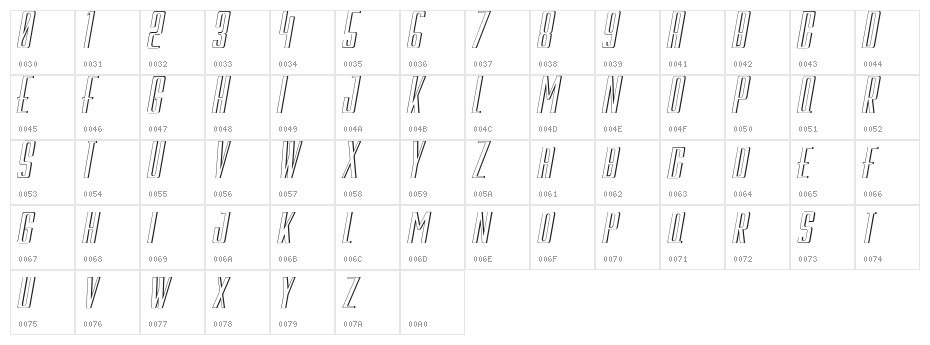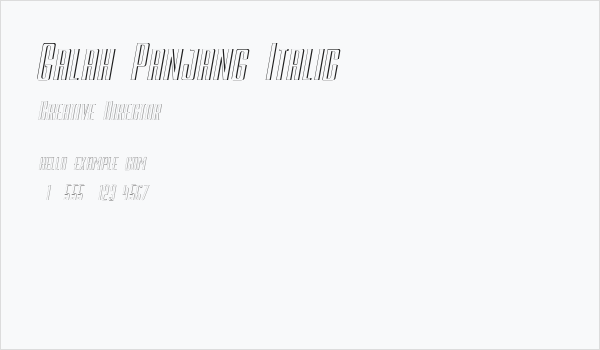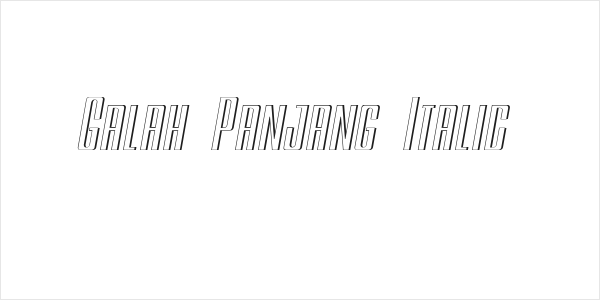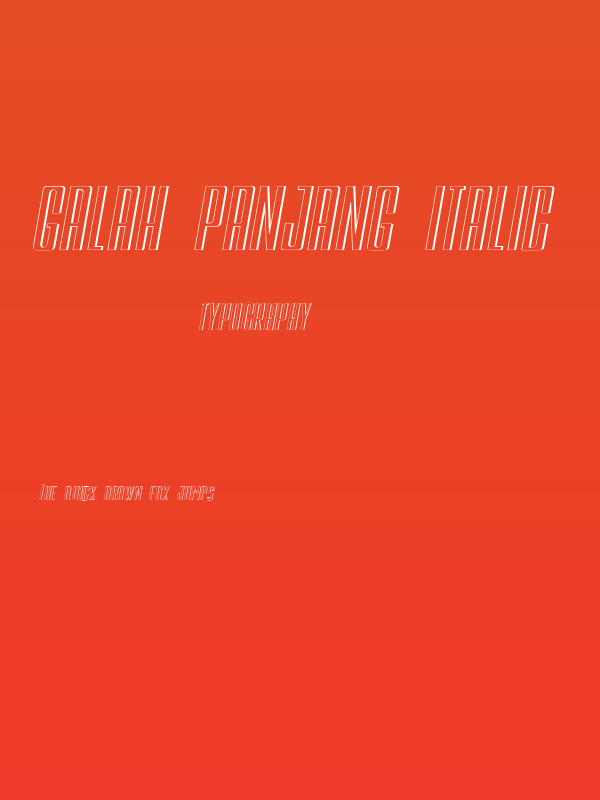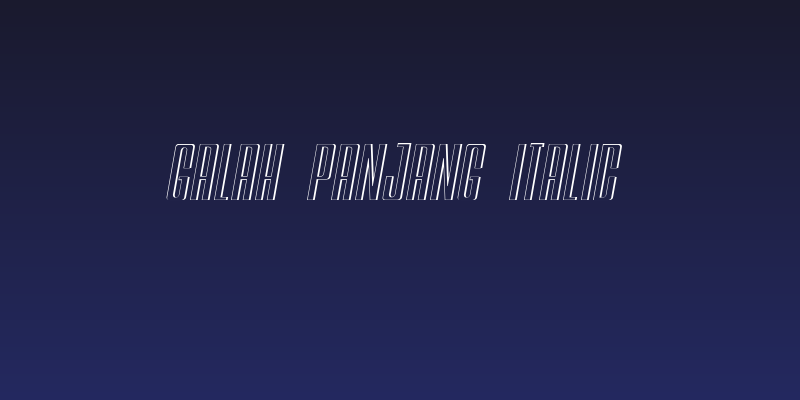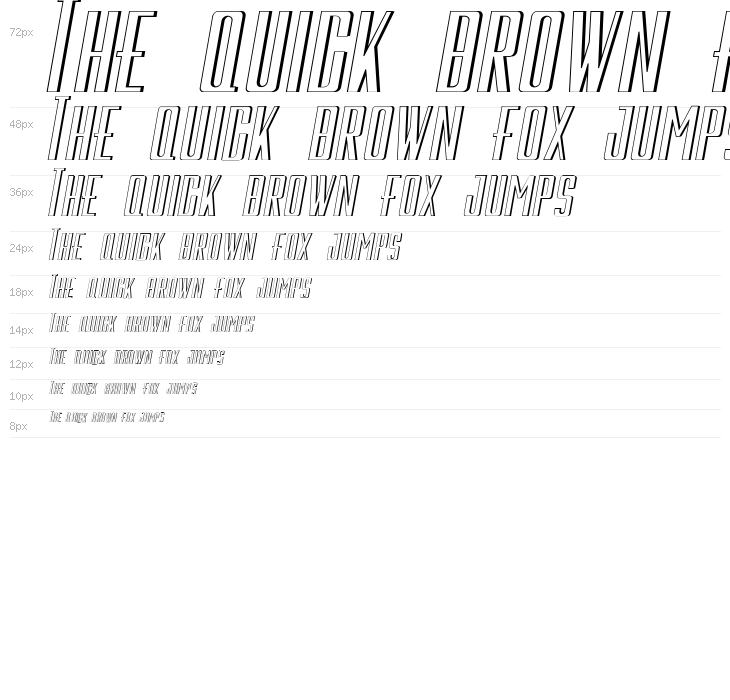
Galah Panjang Italic Font
Galah Panjang Italic Description
This font features a sleek, elongated design with a distinct italic slant, giving it a dynamic and modern appearance. The characters are outlined, creating a hollow effect that adds a unique visual interest. The uppercase and lowercase letters maintain a consistent height, contributing to a uniform look. The numerals and special characters follow the same stylistic approach, ensuring cohesion across all elements. The font's narrow width and tall stature make it ideal for creating a sense of movement and speed, while the open spaces within each character provide a light and airy feel.